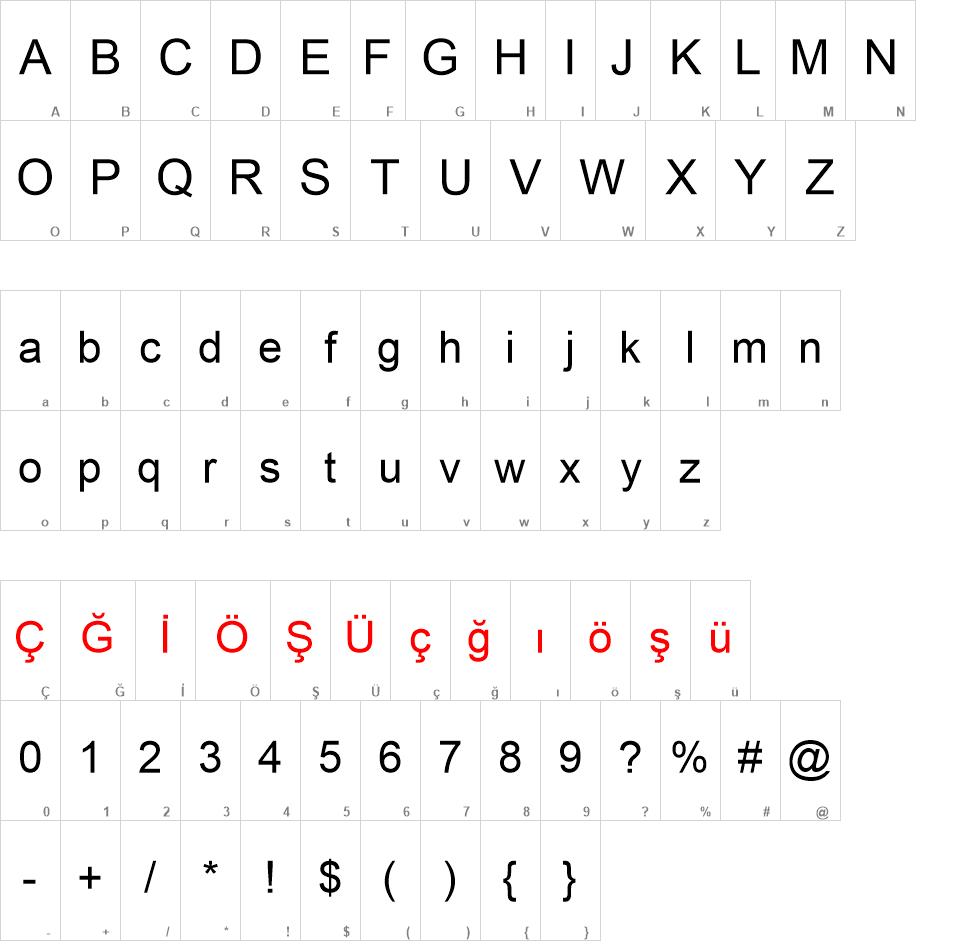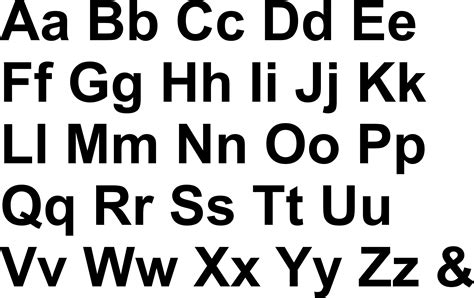
Arial Typeface Font - Arial sans serif font is a humanist font with angled terminals as a identity of this.
Arial sans serif font is a humanist font with angled terminals as a identity of this.